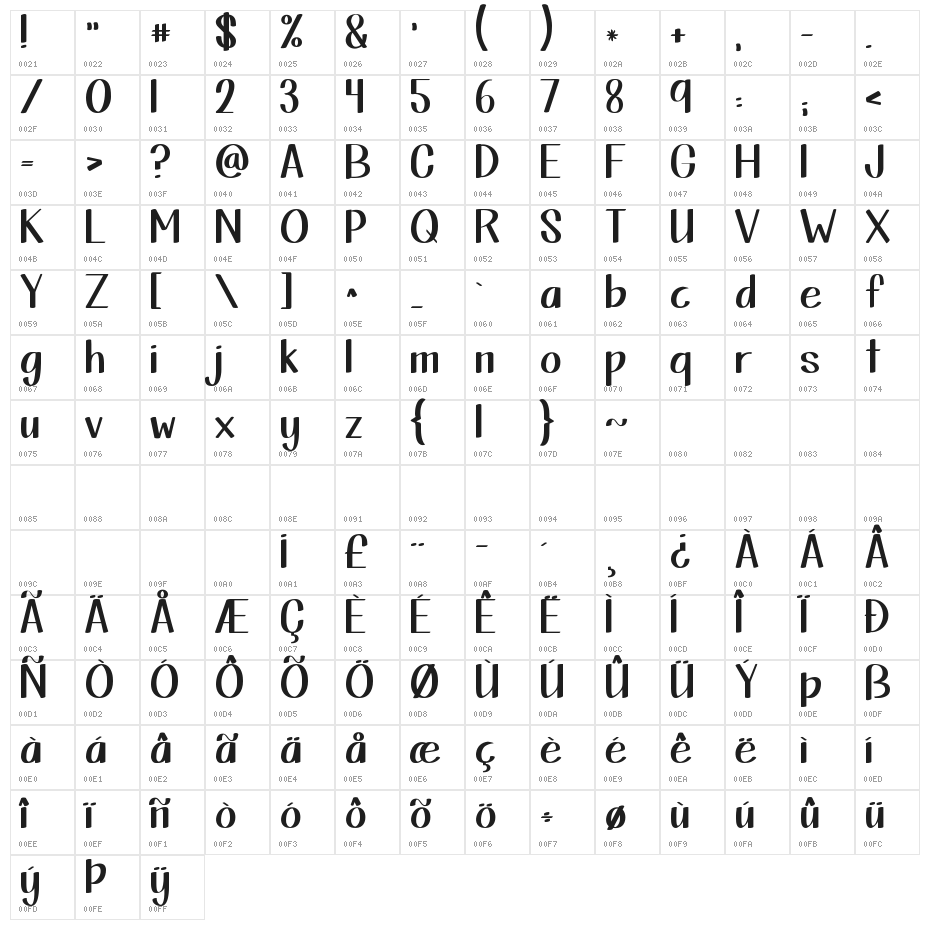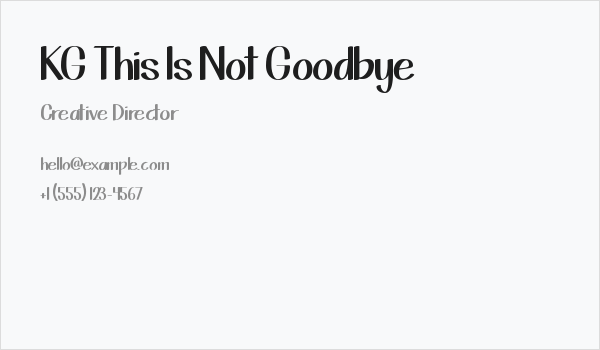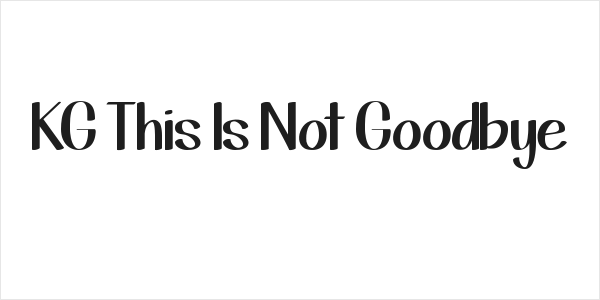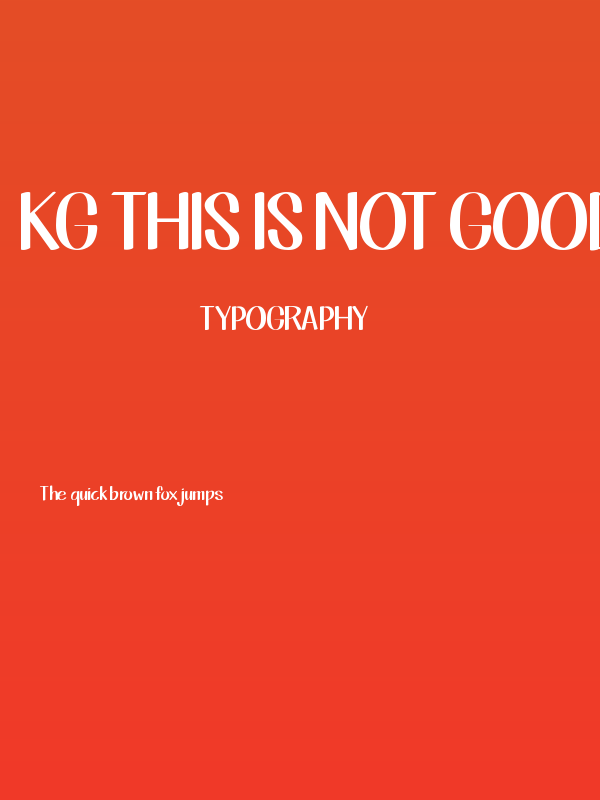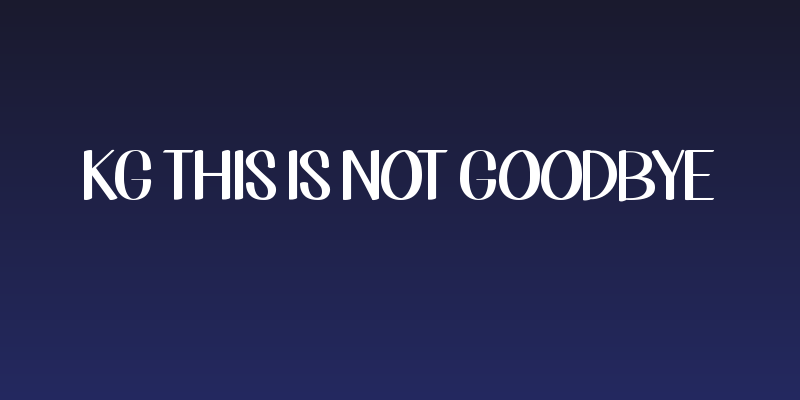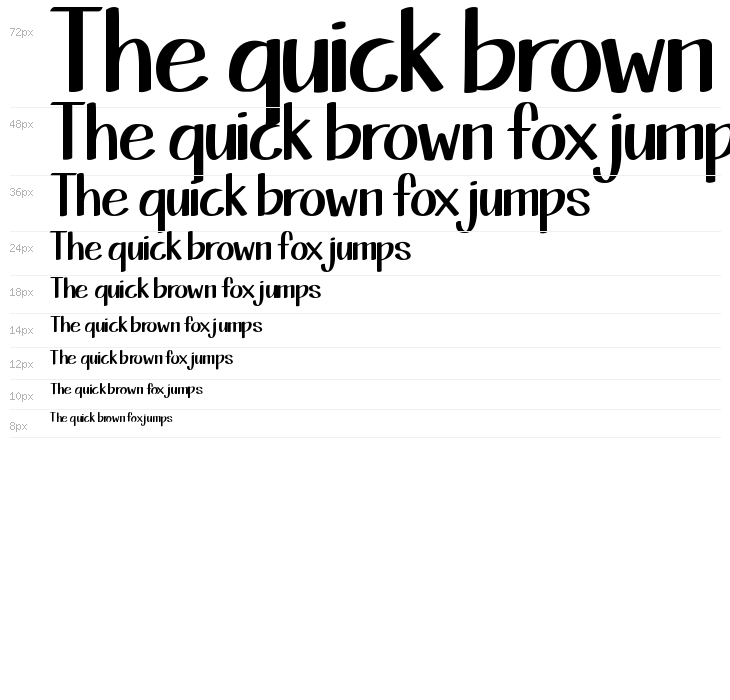
KG This Is Not Goodbye Font
KG This Is Not Goodbye Description
This font features a playful and whimsical style with a handwritten feel. The uppercase letters are bold and slightly condensed, giving them a strong presence. The lowercase letters maintain a consistent flow with rounded edges, adding to the font's approachable and friendly appearance. Numbers are equally bold, ensuring readability. Special characters are creatively designed, maintaining the overall playful aesthetic. The font's unique charm makes it suitable for projects that require a personal touch.
| Use Case | Headlines, Logos, Social Media Graphics |
| Proposed Projects | Ideal for greeting cards, children's books, playful branding, and social media graphics. |